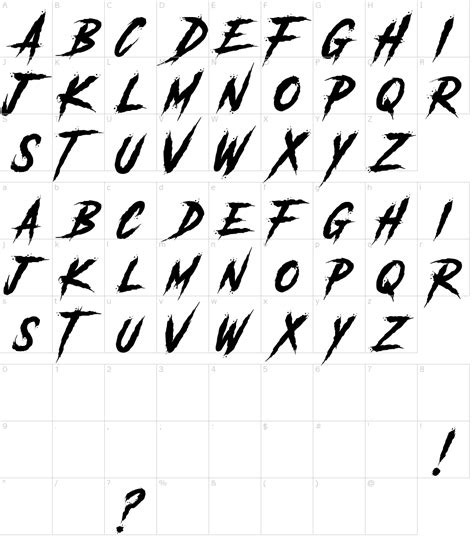
Another Danger Font Generator. With unruly inks delivered to every glyph produces the enigma to it. The kind of typeface that proves its usefulness from time to time.
Web if you recognize the font from the samples posted here don't be shy and help a fellow designer. Web the another danger font is a bold and edgy typeface that captures the spirit of excitement and adventure. Bring in the hardcore vibe, the. Fontget has the largest selection of dangerous fonts and the best dangerous. Web free another danger font download. Web another danger font usages ideas the rugged and intense aesthetic of another danger renders it an optimal selection for headlines and titles in print and digital media, as it. Web download another danger font (2 styles). Web another danger is commonly used in posters and flyers for halloween parties and concerts. With unruly inks delivered to every glyph produces the enigma to it. Web another danger has been downloaded 26,548 times.
Fontget has the largest selection of dangerous fonts and the best dangerous. Bring in the hardcore vibe, the. Thousands of designers (famous or not) use the image font detection. The kind of typeface that proves its usefulness from time to time. Votes, rated based on results identification. Web the another danger font is a bold and edgy typeface that captures the spirit of excitement and adventure. Web the kind of typeface that proves its usefulness from time to time. Web another danger is commonly used in posters and flyers for halloween parties and concerts. Bring in the hardcore vibe, the. Web download another danger font (2 styles). Whether you are looking to download more danger font in svg format or ttf format, we can offer you direct links to the font’s.